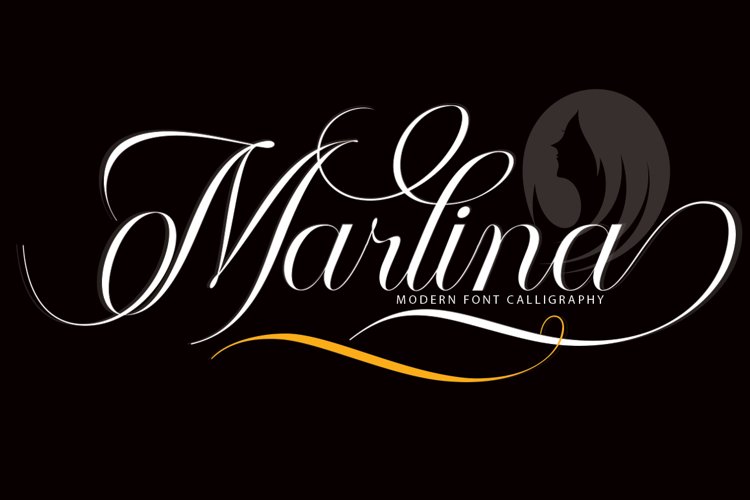
Marlina
Introducing marlina
This font has a modern style and neatness that is very beautiful this font also has several glyps to complement each letter style.